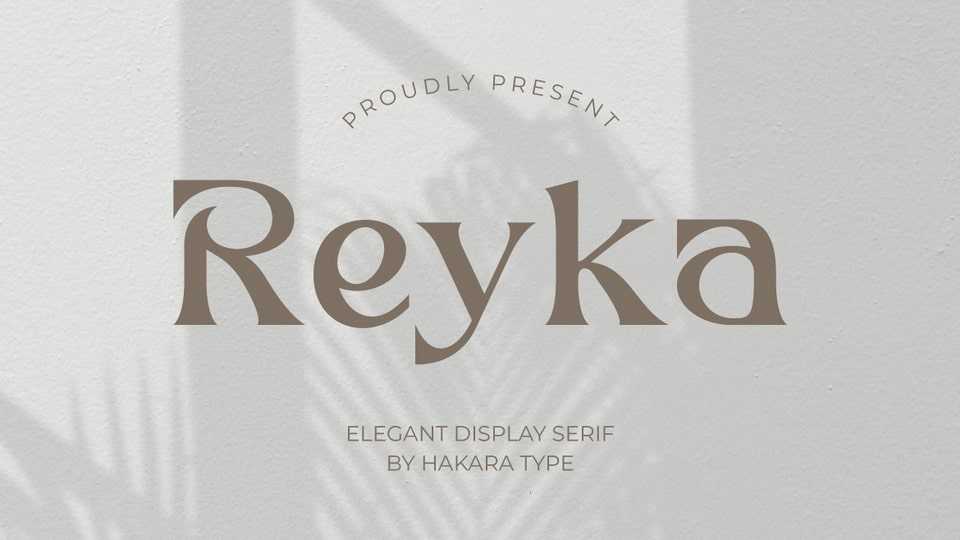
Download Reyka font, a modern display typeface with bold and soft serif shapes, making it elegant and eye-catching. Reyka could be an ideal choice for various design projects, from branding, advertising, logos, headlines, posters and others.
Designer: Hakara Type